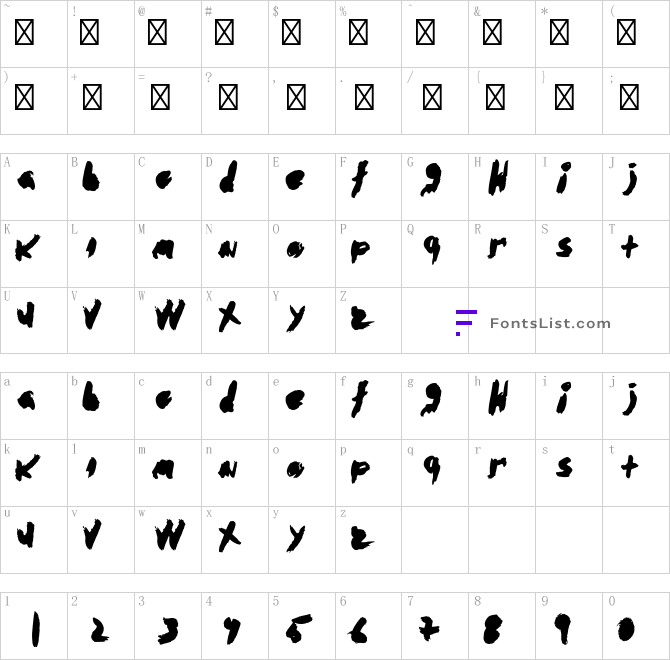
- Font Name:abstracto
abstracto-Regular.otf is a very beautiful artistic font, abstracto-Regular.otf is widely used in the design and printing of various books and pictures,abstracto-Regular.otf has a strong visual impact,abstracto-Regular.otf is a commonly used font in newspapers, magazines and books, and is used in posters, e-commerce Poster design, store design, logo design, font design and other fields.abstracto-Regular.